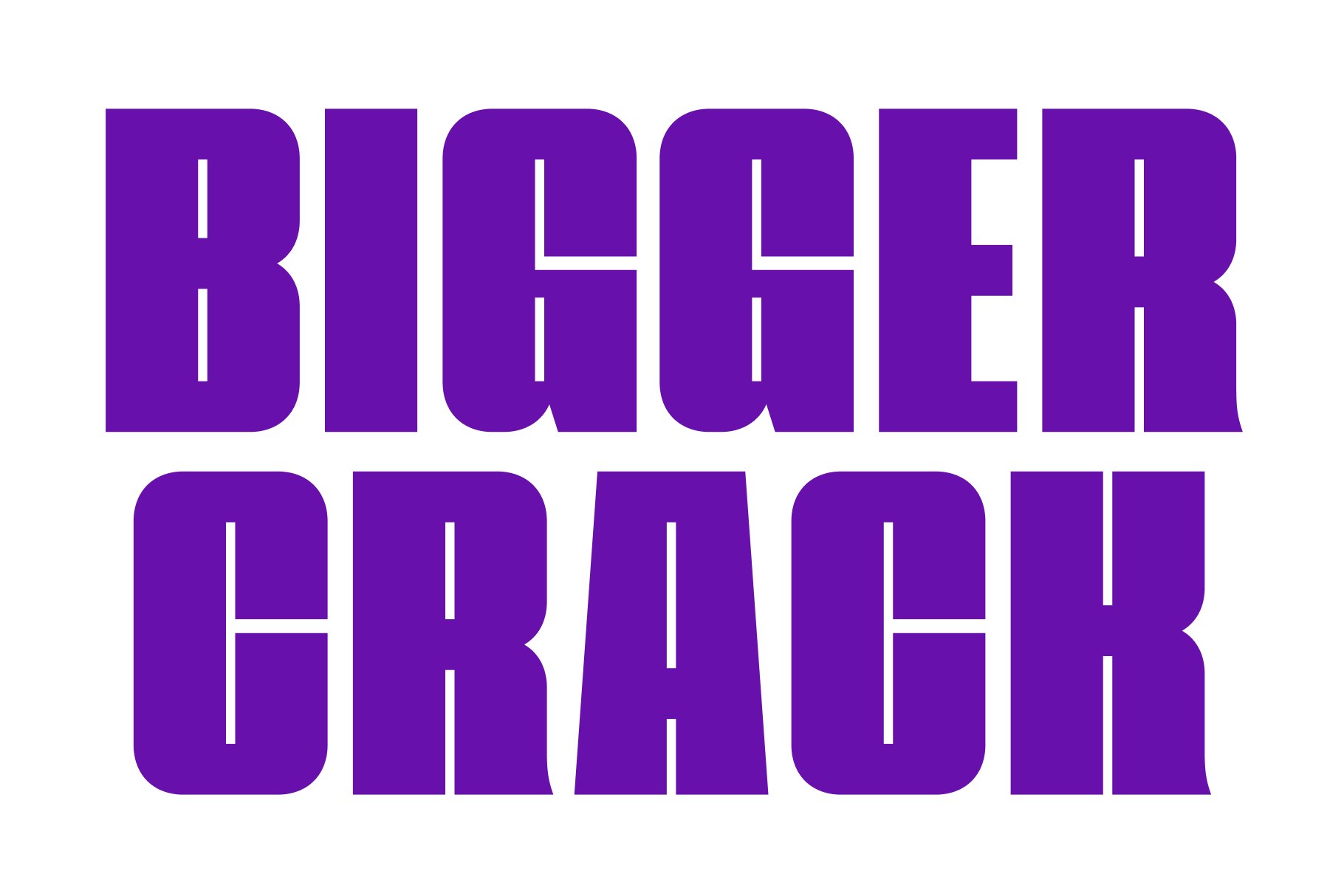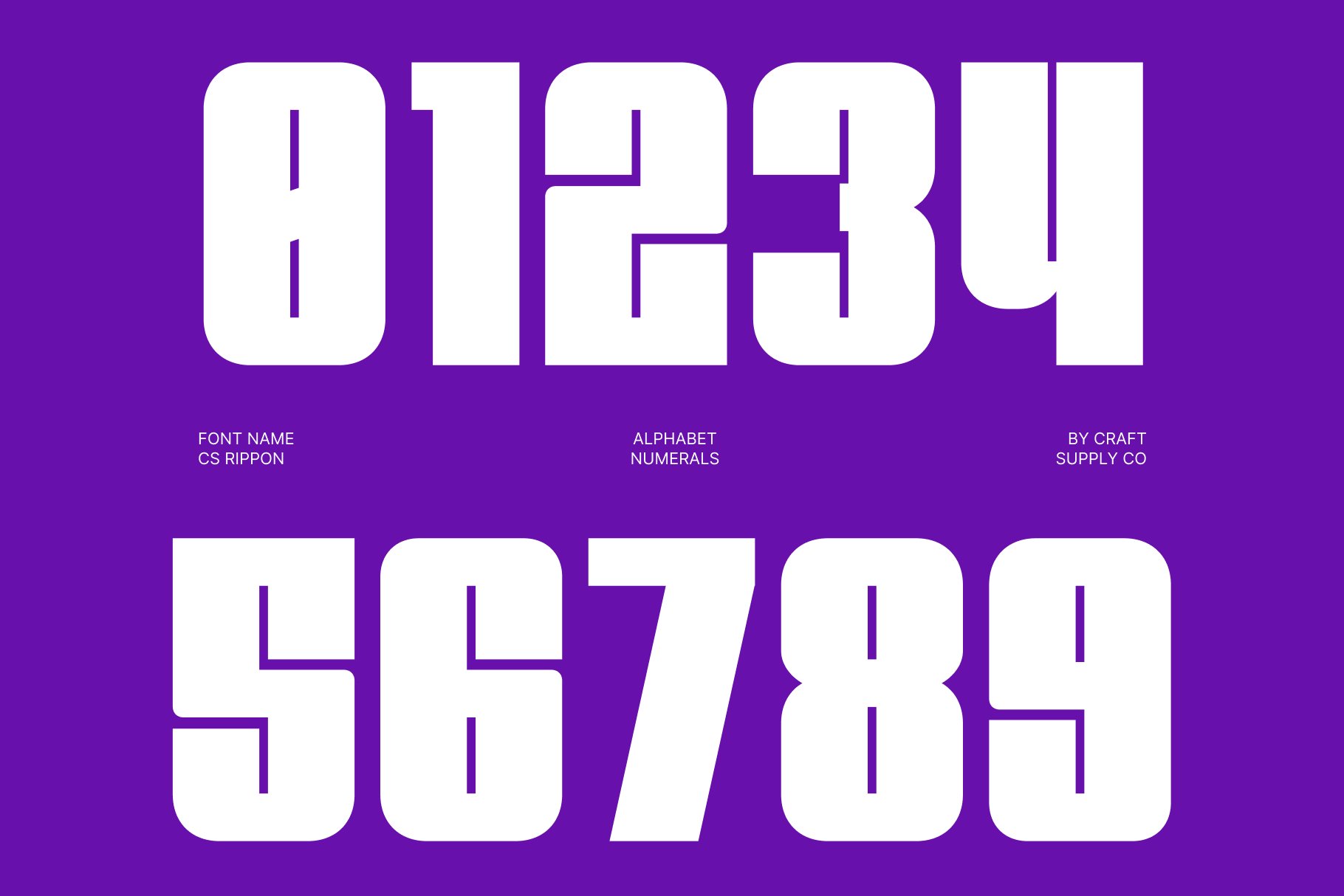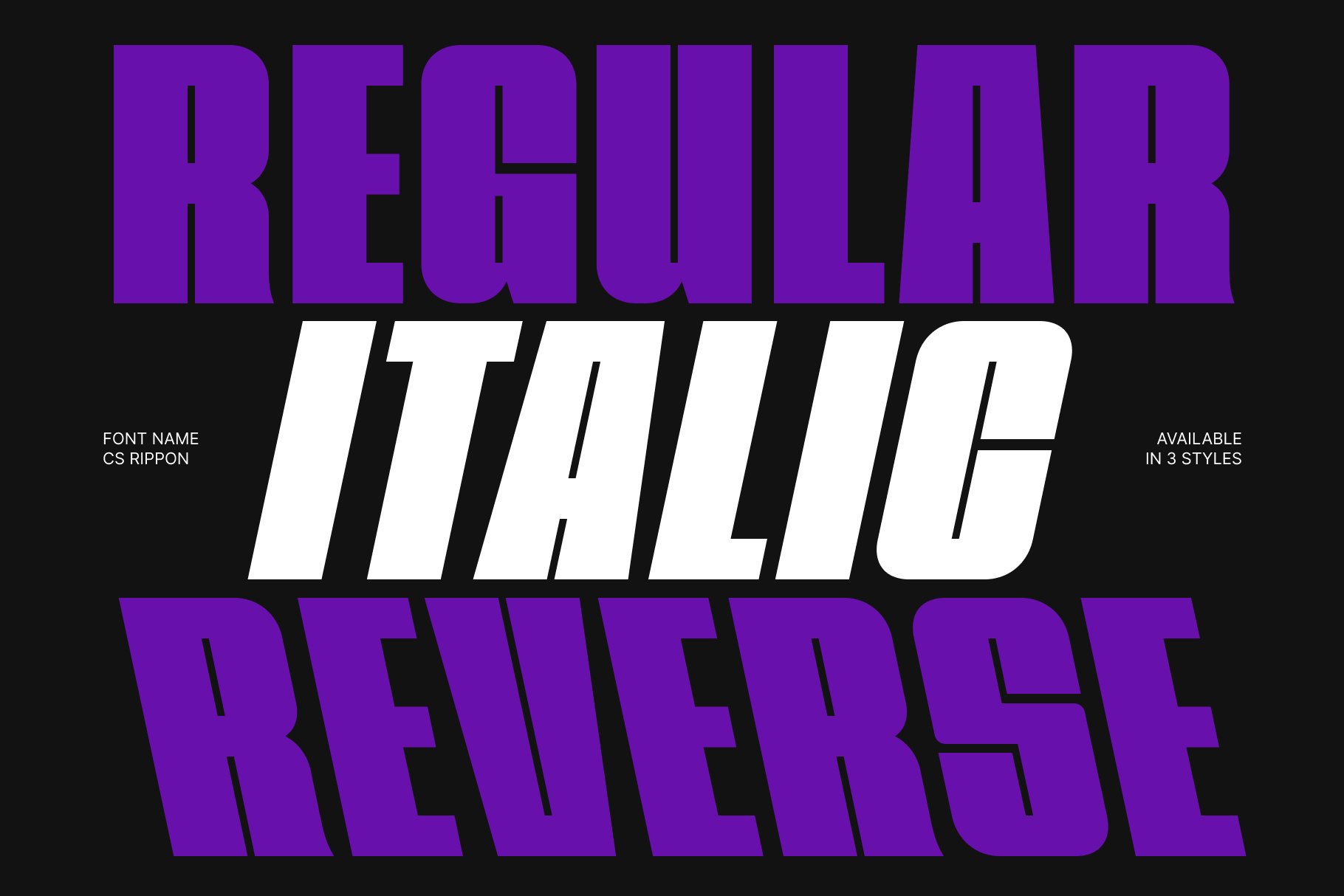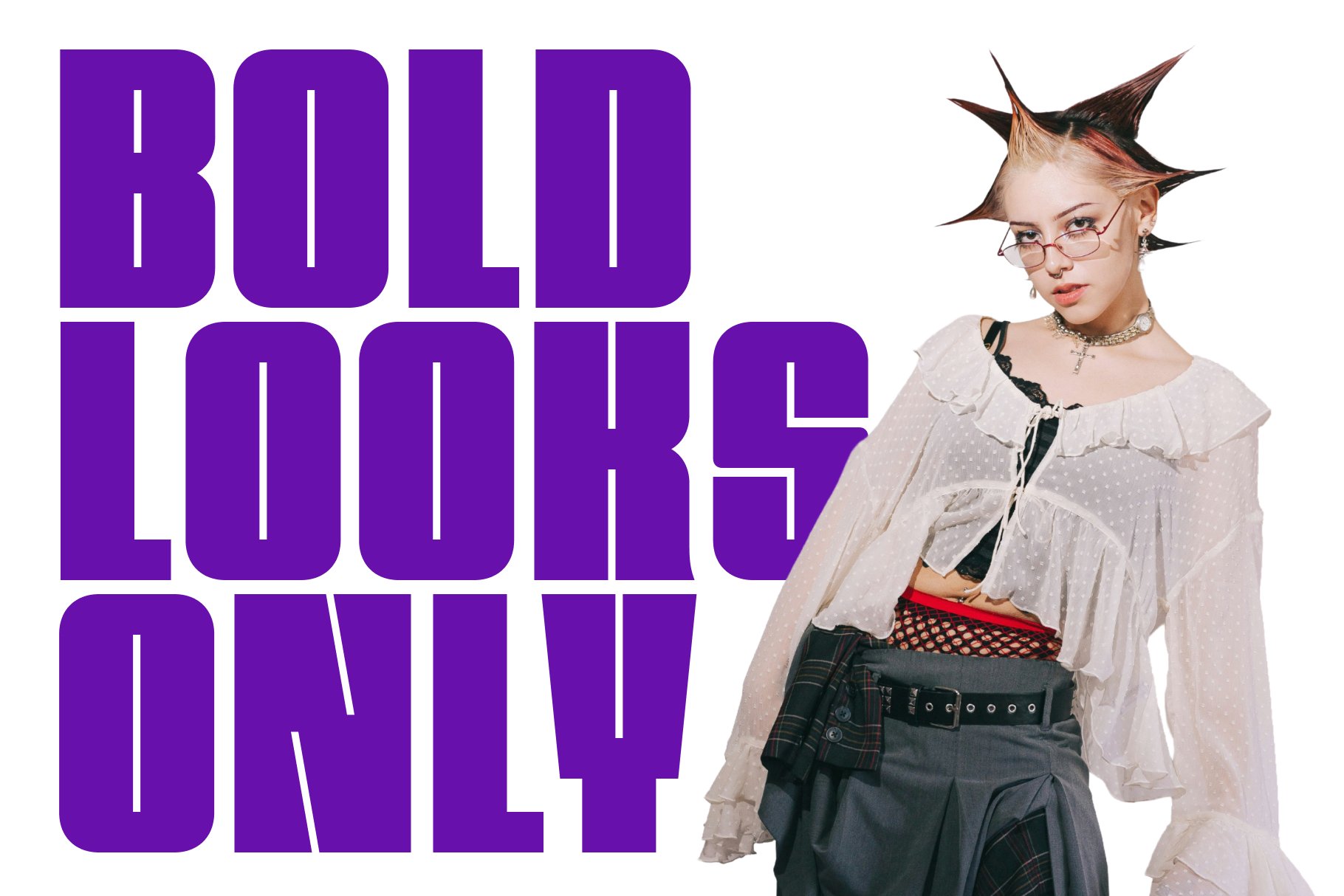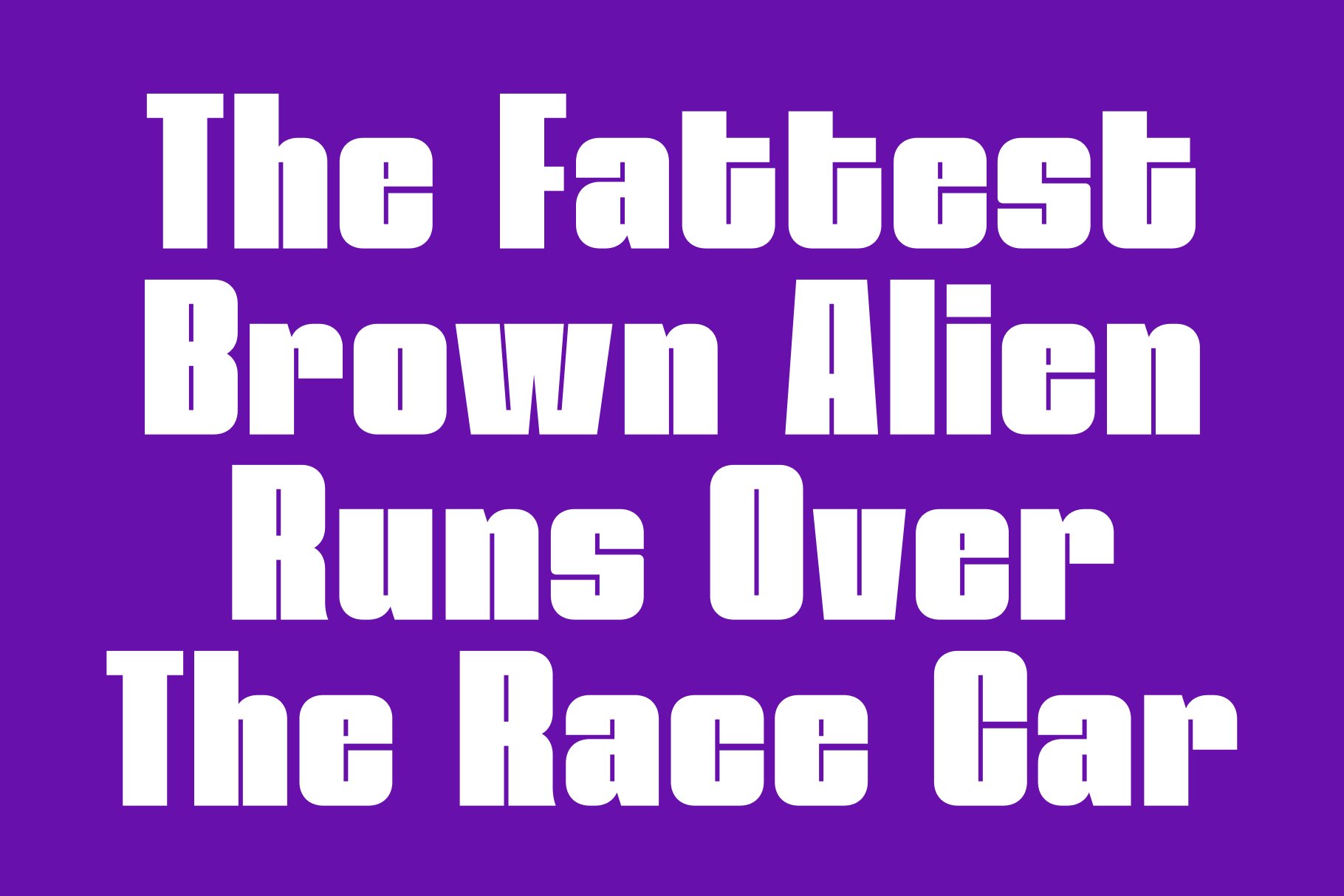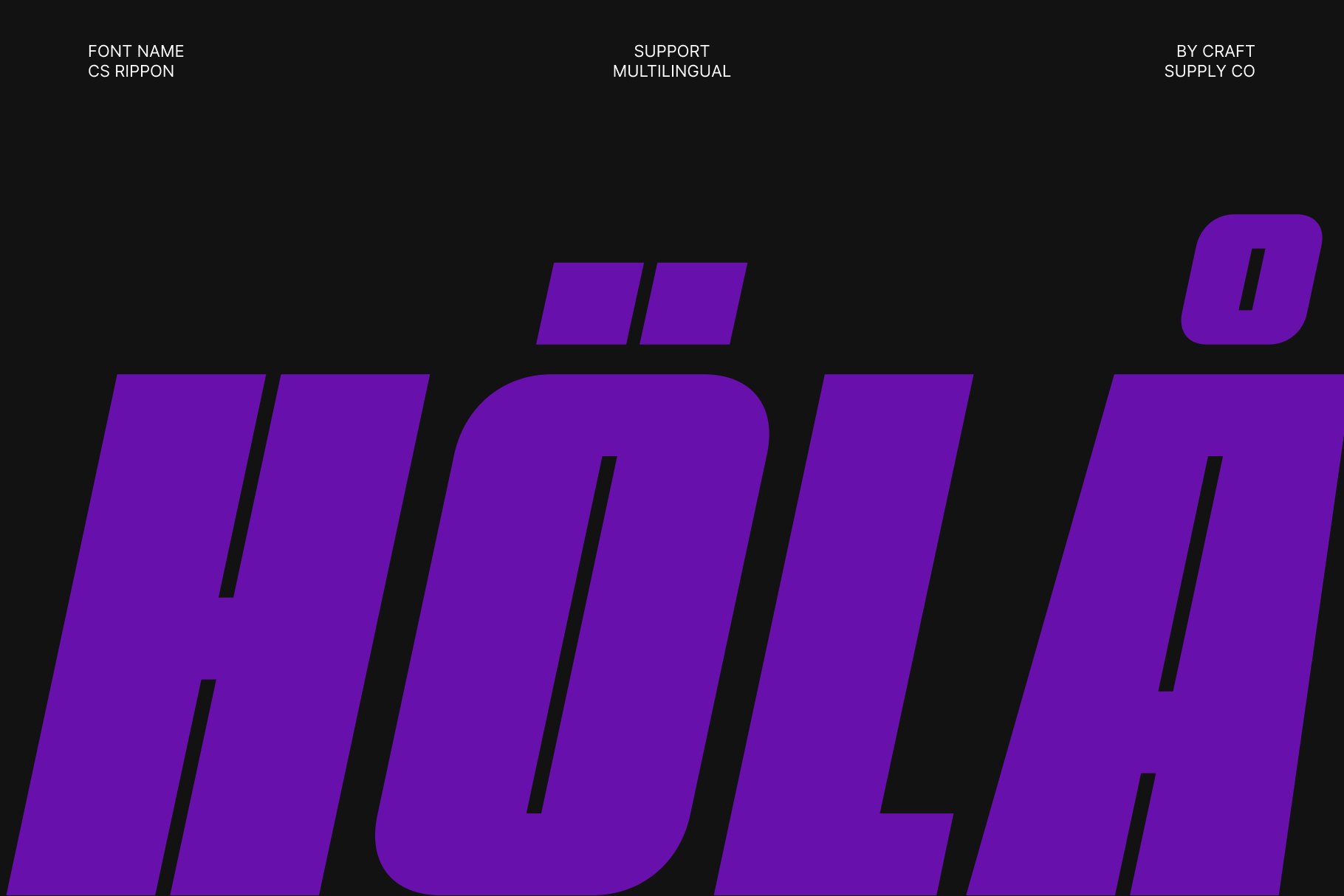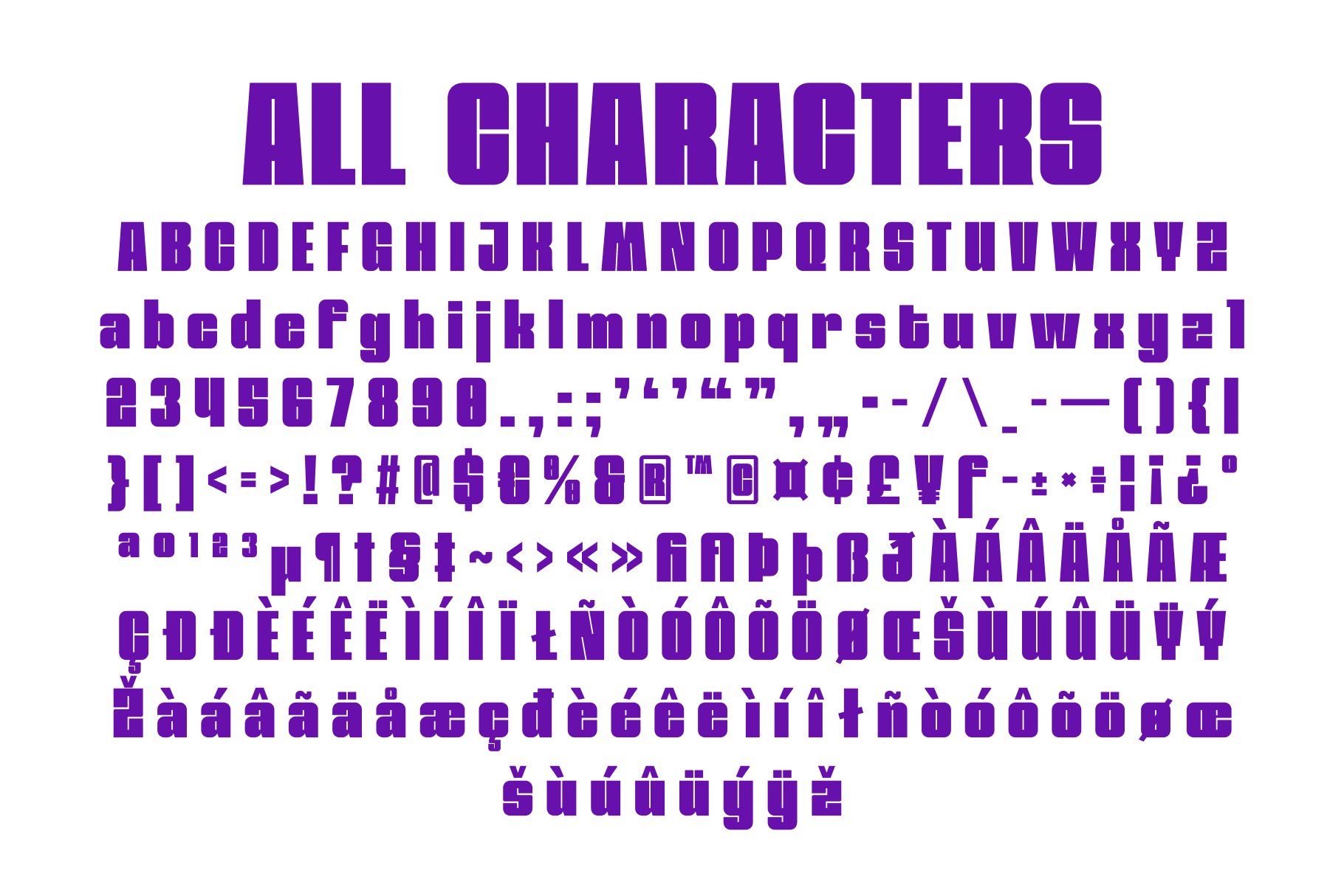
CS Rippon – Bold Condensed Display Font: Where Geometric Strength Meets Modern Impact
Thick Geometric Letterforms with Commanding Presence
This is a bold condensed display font featuring thick, geometric letterforms that create a clean, modern, and commanding appearance. Its tall proportions maximize visual impact while maintaining efficient use of space, making every headline bold, confident, and instantly attention-grabbing.
Clean Structure with Outstanding Readability
Built with minimal design principles and balanced geometry, its delivers exceptional readability without sacrificing visual power. Its straightforward construction creates a polished, professional aesthetic that remains highly legible across large-format applications, making it ideal for both print and digital display typography.
Modern Simplicity with Strong Visual Authority
This font communicates confidence, precision, and contemporary style. Its versatile design adapts effortlessly to a wide range of creative applications, providing a strong typographic voice that enhances branding and visual hierarchy with clarity and impact.
Perfect for Headlines, Posters, Advertising, and Branding
Perfect for headlines, posters, advertising campaigns, branding, logos, packaging, editorial layouts, magazine covers, signage, merchandise, promotional materials, and contemporary visual identities. Its fusion of bold condensed construction, geometric precision, and modern minimalism makes it ideal for projects that demand maximum visual impact while maintaining a clean and professional appearance. With its combination of commanding proportions and timeless contemporary design, this font delivers a distinctive and unforgettable typographic statement.